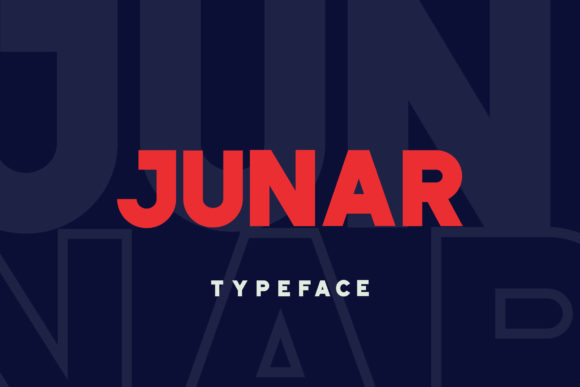
Junar Font
**Introducing Junar Font: The Font of Distinction**
Prepare to turn heads and ignite imagination with Junar, the sans serif font that exudes power and sophistication. Its bold, unwavering letterforms and modern flair demand attention, making it the perfect choice for those seeking to leave an unforgettable mark.
With Junar, your words will dance off the page, commanding attention and stirring emotions. Its clean lines and geometric precision create a visual symphony that captivates the eye and stirs the soul. Whether gracing the pages of a magazine, adorning a headline, or emblazoned on large format prints, Junar has the power to transform your message into a masterpiece.
**Unleash Your Inner Artist**
Whether you're a seasoned designer or just starting to explore the world of typography, Junar is your muse. Its versatility knows no bounds, empowering you to express your creativity and make a statement. From social media posts to magazine covers, from billboards to product packaging, Junar will elevate your designs and make your vision a reality.
**Make a Statement, Leave a Legacy**
In a world of overwhelming stimuli, it's not enough to blend in. With Junar, you have the power to stand out, to make your voice heard, and to leave a lasting impression. Its unwavering presence will command attention, ensuring that your message resonates with your audience and lingers in their minds long after they've turned the page or closed the tab.
**Experience the Junar Difference**